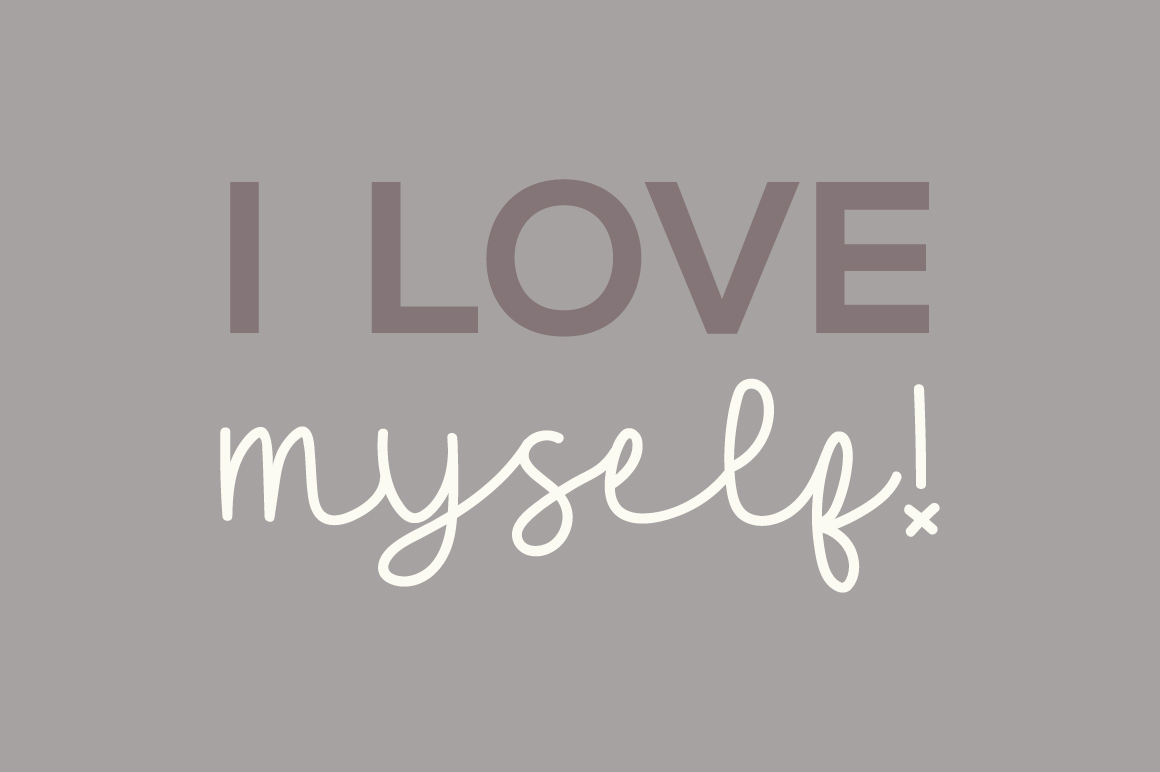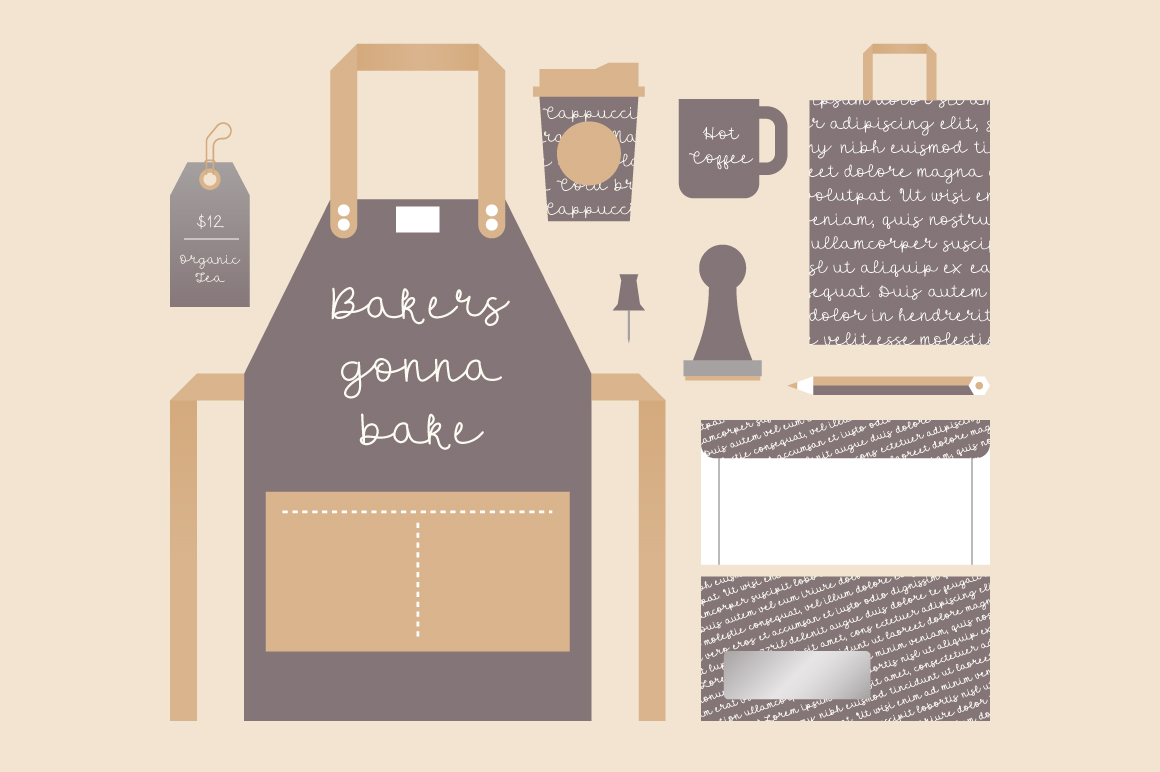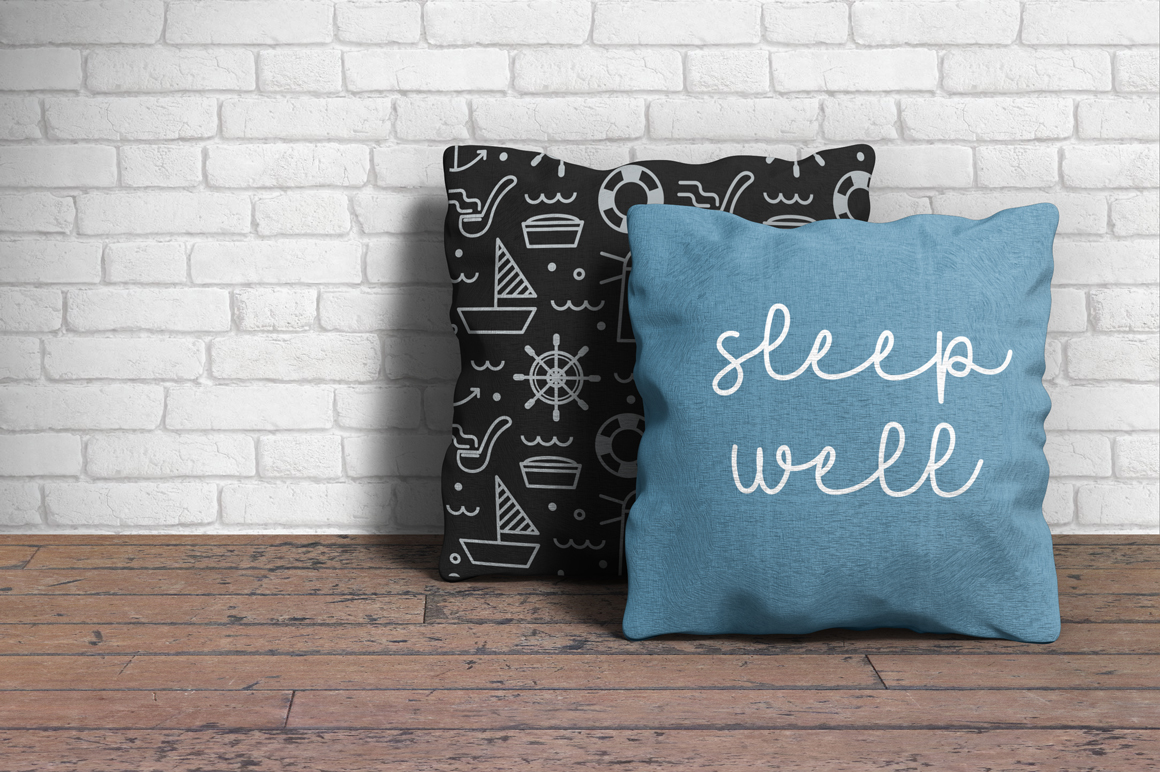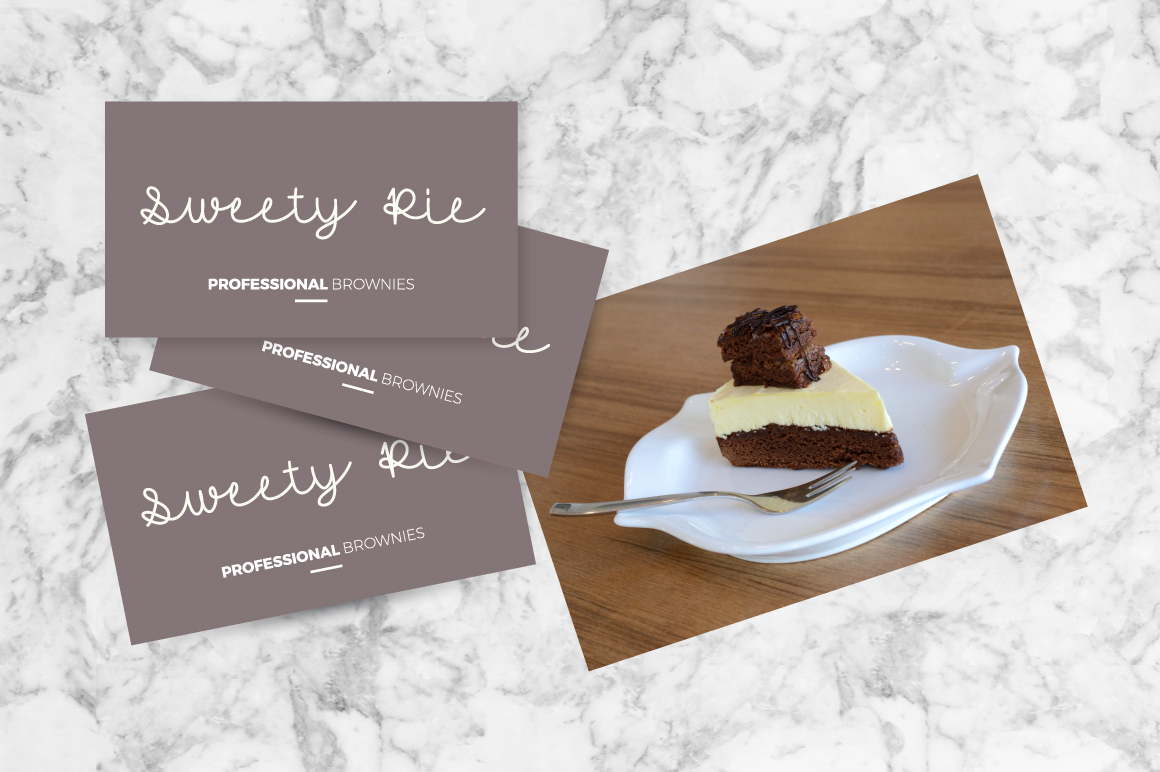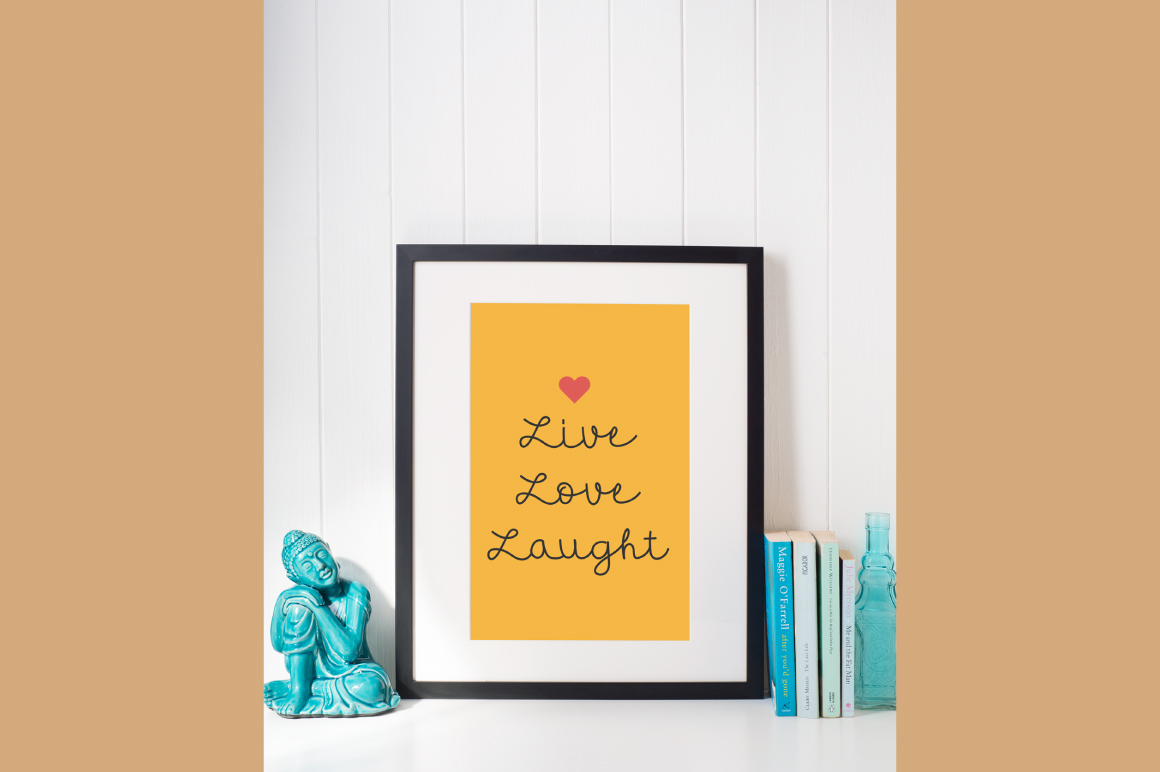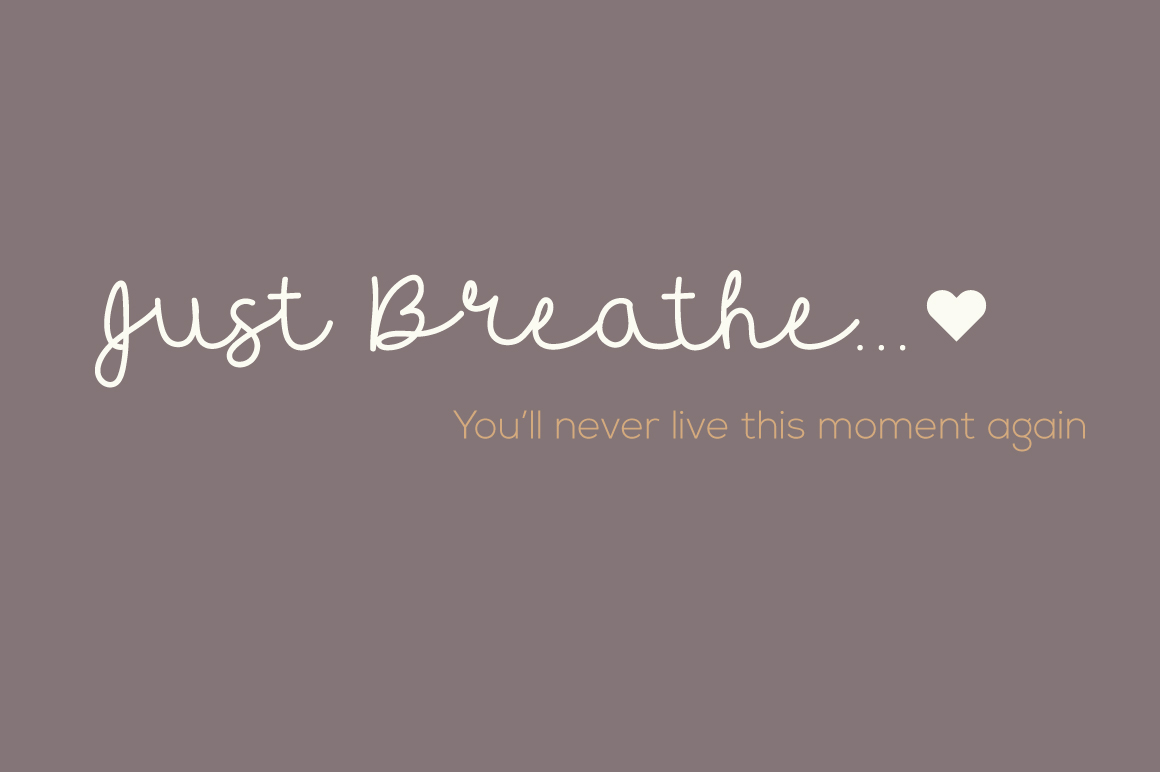
Introducing Hello Chiang Mai Font: The Perfect Blend of Style and Relaxation
Are you tired of using the same old fonts in your designs? Look no further! Hello Chiang Mai Font is a game-changer. This mono line script font is designed to bring a stylish, relaxed, and good vibe to your creative projects. Inspired by the beautiful city of Chiang Mai in Thailand, this font is sure to make your designs stand out.
What is Hello Chiang Mai Font?
Hello Chiang Mai Font is a mono line script font that features a unique and elegant design. The font’s mono line construction gives it a sleek and modern look, while its script style adds a touch of sophistication and elegance. The font is designed to be highly versatile, making it perfect for a wide range of creative projects, from branding and advertising to packaging and digital design.
Key Features of Hello Chiang Mai Font
So, what makes Hello Chiang Mai Font so special? Here are some of its key features:
- Smooth Connections: The font features many kerning pairs to ensure that all characters connect smoothly, creating a seamless and flowing look.
- Stylish and Relaxed: The font’s design is both stylish and relaxed, making it perfect for projects that require a touch of elegance and sophistication.
- Good Vibe: The font’s overall vibe is positive and uplifting, making it perfect for projects that require a friendly and approachable tone.
- Inspired by Chiang Mai: The font’s name is inspired by the beautiful city of Chiang Mai in Thailand, which is known for its rich culture and stunning natural beauty.
Who is Hello Chiang Mai Font for?
Hello Chiang Mai Font is perfect for designers, crafters, and anyone looking to add a touch of style and elegance to their creative projects. Whether you’re working on a branding project, creating a new logo, or designing a website, this font is sure to impress.
Some examples of projects that Hello Chiang Mai Font would be perfect for include:
- Branding and Advertising: Use Hello Chiang Mai Font to create stunning logos, business cards, and marketing materials that will help your brand stand out.
- Digital Design: Add a touch of elegance and sophistication to your website, social media graphics, and digital marketing materials with Hello Chiang Mai Font.
- Packaging Design: Use Hello Chiang Mai Font to create eye-catching packaging that will help your product stand out on store shelves.
- Crafting and Scrapbooking: Hello Chiang Mai Font is also perfect for crafters and scrapbookers who want to add a personal touch to their projects.
Here are some tips for getting the most out of Hello Chiang Mai Font:
- Experiment with Different Sizes: Hello Chiang Mai Font looks great in a variety of sizes, from small and delicate to large and bold.
- Play with Color: The font’s elegant design looks great in a range of colors, from bold and bright to soft and pastel.
- Mix and Match: Don’t be afraid to mix and match Hello Chiang Mai Font with other fonts to create a unique and eye-catching look.
Hello Chiang Mai Font is a stylish, relaxed, and elegant mono line script font that’s perfect for designers, crafters, and anyone looking to add a touch of sophistication to their creative projects. With its smooth connections, stylish design, and good vibe, this font is sure to make your designs stand out. So why wait? Download Hello Chiang Mai Font today and start creating stunning designs that will leave a lasting impression!